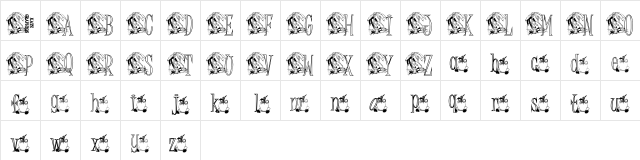
KG GETAWAY Regular
Design Context for KG GETAWAY
KG GETAWAY is a composed and adaptable typeface that performs quietly and consistently across a wide range of design contexts.